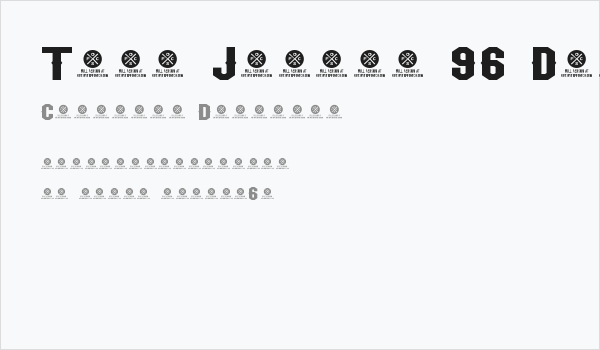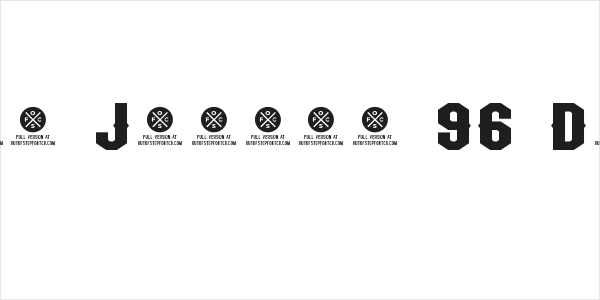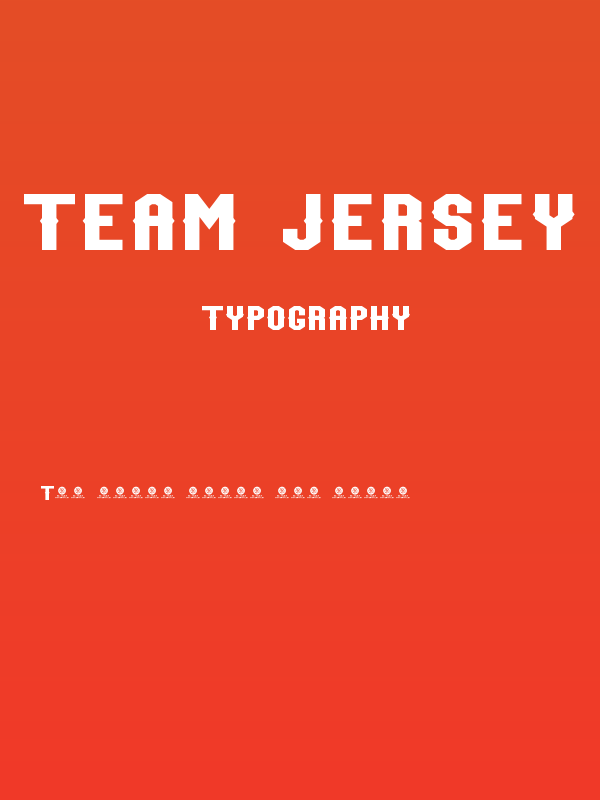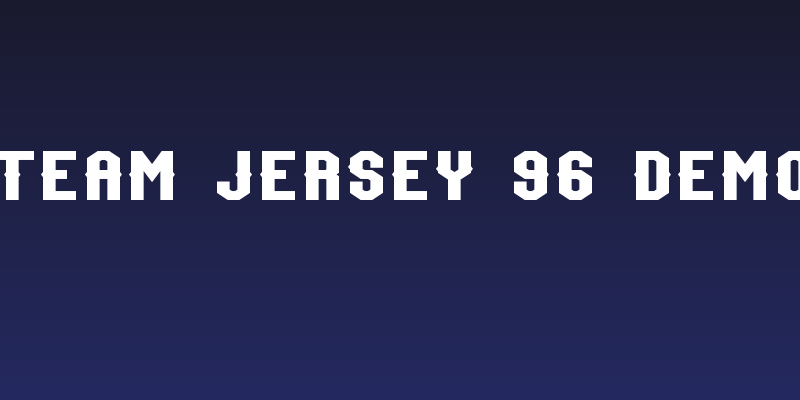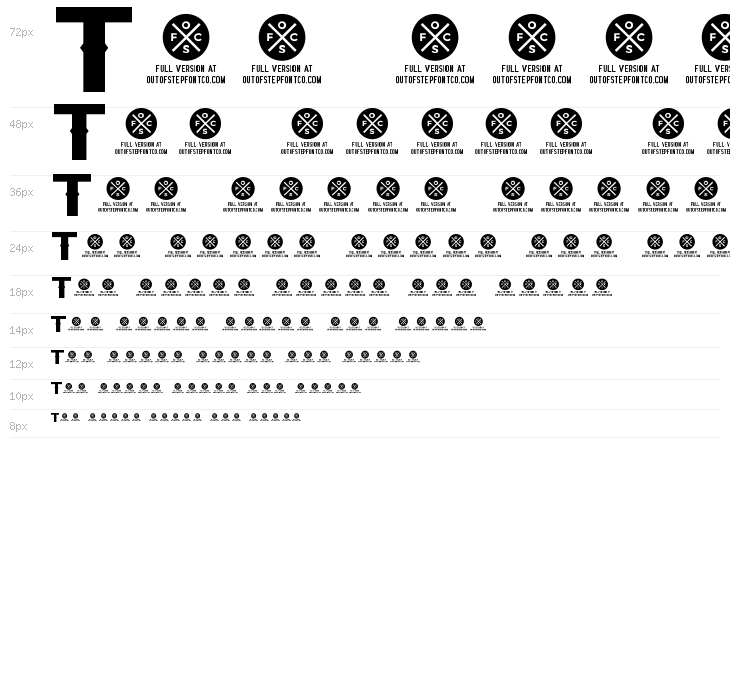
Team Jersey 96 Demo Font
Team Jersey 96 Demo Description
This font features a bold and robust design, characterized by its blocky and angular letterforms. The uppercase letters are uniform in height, creating a strong and cohesive appearance. The font has a distinct sports jersey aesthetic, with sharp edges and a solid, impactful presence. It is designed to stand out, making it ideal for attention-grabbing headlines or team branding. The numbers are equally bold, maintaining the same angular style, which enhances the overall uniformity and strength of the font.
| Proposed Projects | Perfect for sports team branding, athletic apparel, event posters, and any project requiring a bold, impactful typeface. |